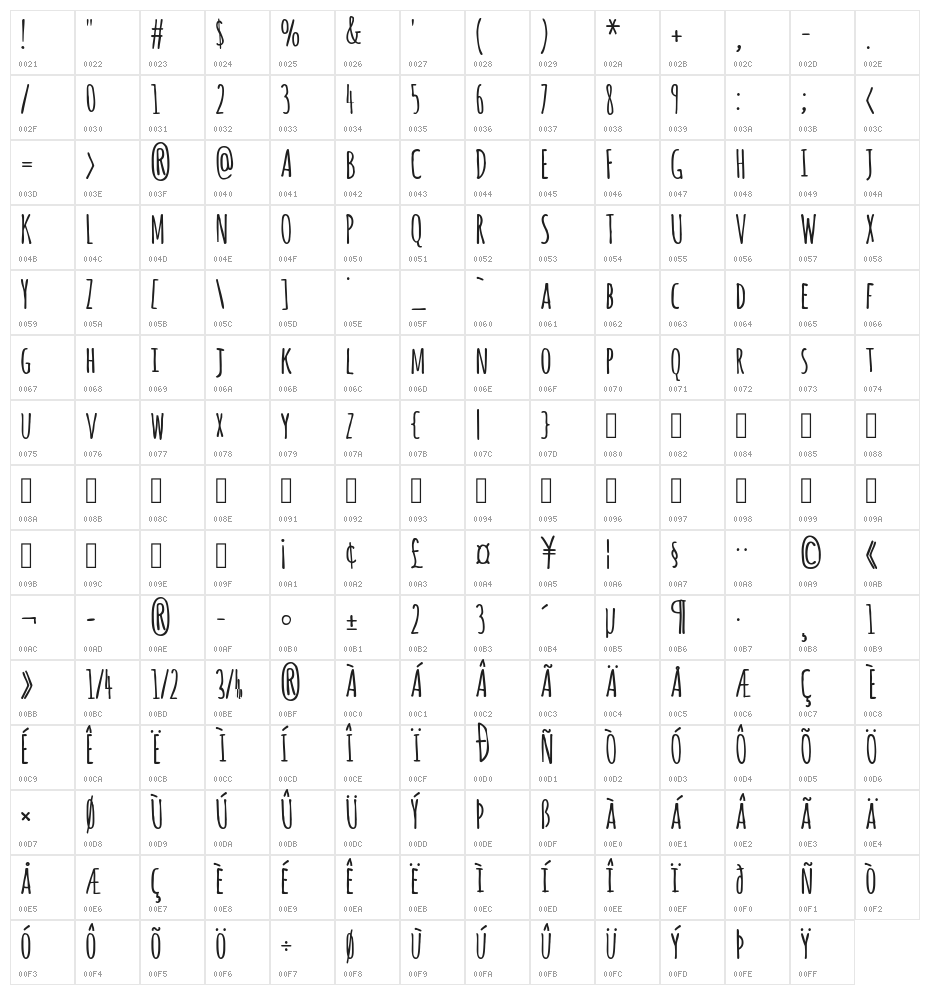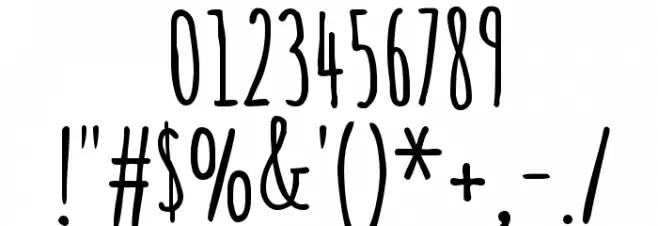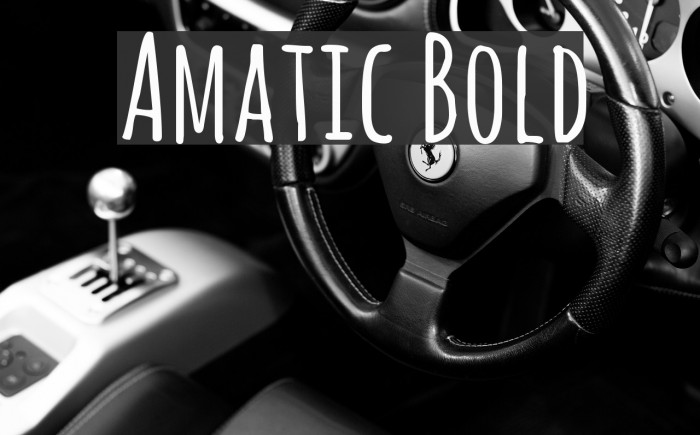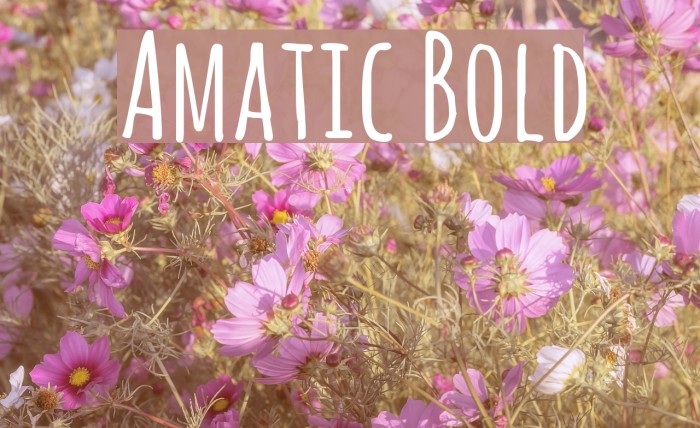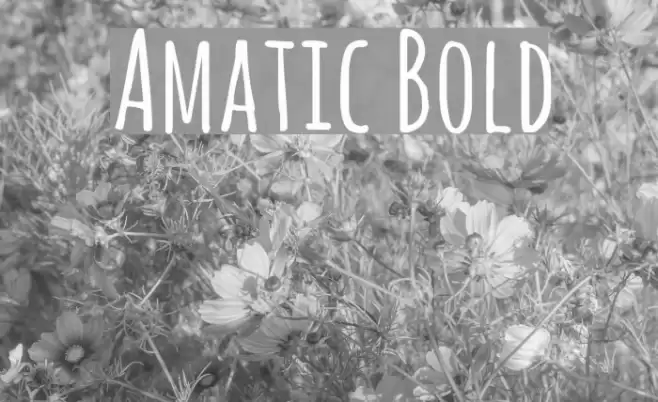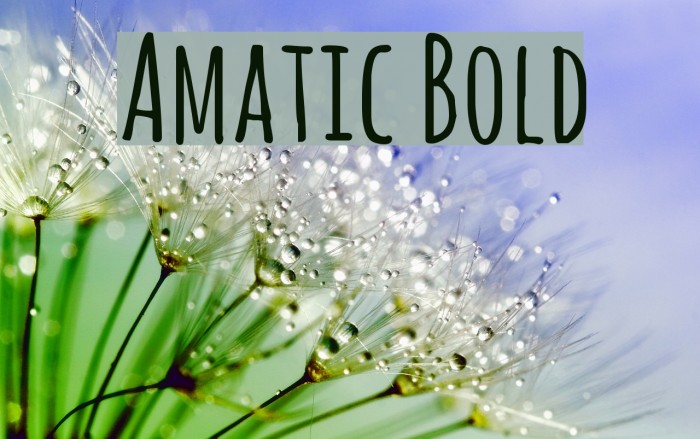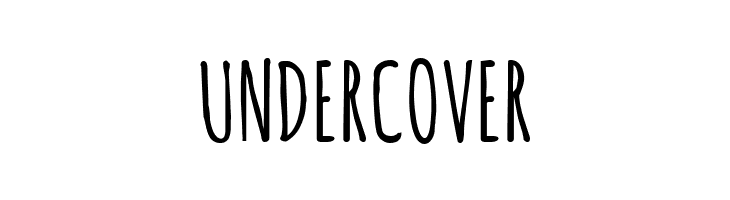
Amatic Bold Font
Amatic Bold Description
This font features a playful and hand-drawn aesthetic, characterized by its tall, narrow letters with slightly uneven strokes that give it a casual, informal feel. The uppercase and lowercase letters maintain a consistent style, with a slight tilt and irregularity that adds charm and personality. The numbers and special characters follow the same design principles, ensuring a cohesive look across all glyphs. Its unique style makes it stand out, while still being legible and versatile for various design needs.
| Width | Condensed |
| Overall Style | Casual, Playful |
| Use Case | Headlines, Posters, Invitations |
| Proposed Projects | Ideal for creative projects such as posters, invitations, and branding materials where a unique, informal touch is desired. |